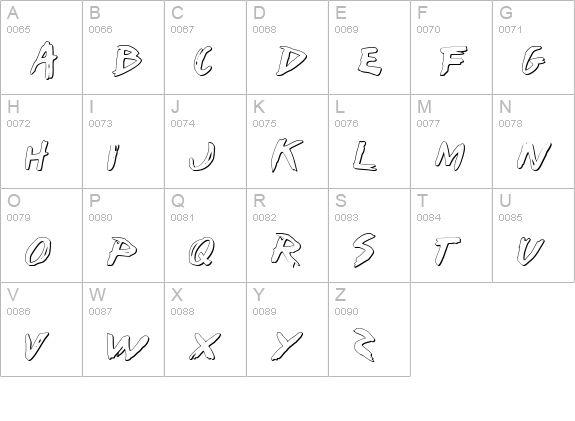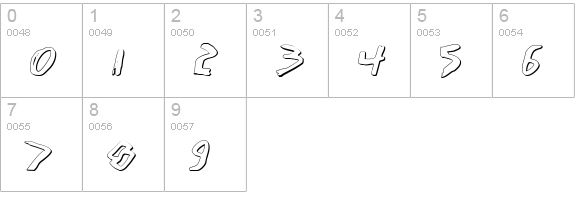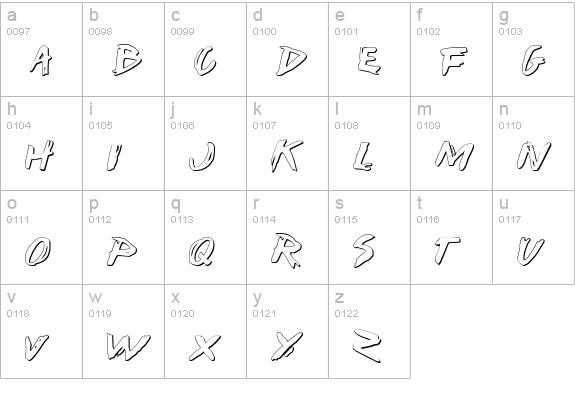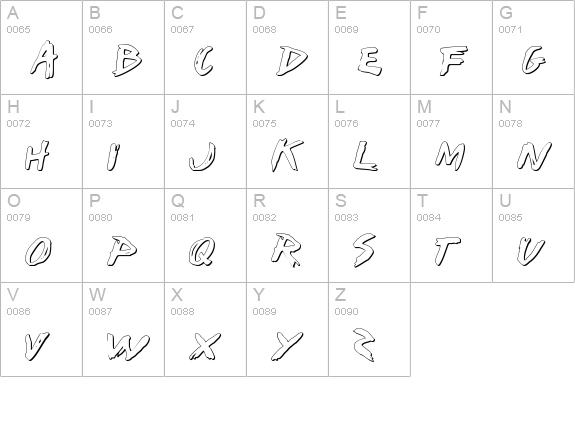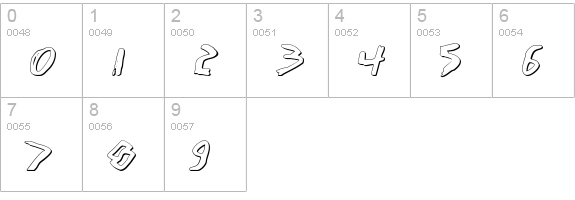
I Want My TTR! (Shadow) Font Details
Introducing the mesmerizing and enigmatic I Want My TTR! (Shadow) font, a true typographic masterpiece that will leave you spellbound. This remarkable font is designed to captivate and evoke a sense of mystery and intrigue with its unique shadowed effect. With its bold and dynamic letterforms, I Want My TTR! (Shadow) font commands attention and adds a touch of sophistication to any design project. Whether you're creating a captivating logo, eye-catching headlines, or elegant invitations, this font is the perfect choice to make a lasting impression. What sets I Want My TTR! (Shadow) font apart is not only its stunning visual appeal but also its accessibility. This font is freely available to download at FontsMarket.com, allowing designers and enthusiasts alike to unleash their creativity without any limitations. Embrace the freedom of this font and explore its endless possibilities. I Want My TTR! (Shadow) font is meticulously crafted with attention to detail, ensuring seamless readability without sacrificing style. Its well-defined shadows create a sense of depth and dimension, adding a touch of realism to your designs. Each character is carefully balanced, resulting in a harmonious and visually appealing composition. Versatility is another key feature of I Want My TTR! (Shadow) font. With a wide range of languages supported, this font effortlessly adapts to various design contexts, making it an invaluable asset for both personal and professional projects. From branding to signage, from packaging to digital media, this font seamlessly integrates into any creative endeavor. Embrace the elegance and intrigue of I Want My TTR! (Shadow) font and elevate your designs to new heights. Its distinct and captivating style will make your typography stand out from the crowd, leaving a lasting impression on your audience. Unlock the potential of this exceptional font and let your imagination run free. Download I Want My TTR! (Shadow) font today at FontsMarket.com and embark on a typographic journey that will redefine the way you communicate visually. Join the countless designers who have already embraced this font and experience the unparalleled freedom, versatility, and allure it brings to your creative endeavors.